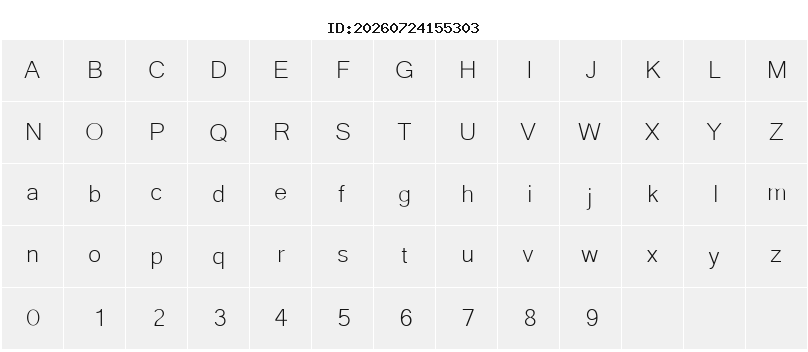
Microsoft Yi Baiti Preview
• Font Name: Microsoft Yi Baiti
• Font ID: Microsoft Yi Baiti
• Full Font Name: Microsoft Yi Baiti
• Version: Version 5.00
• PostScript Name: Microsoft-Yi-Baiti
• Character Count: 1535
• Designer: Beijing Founder Electronic CO. LTD.
• Manufacturer: Microsoft Corporation
About Microsoft Yi Baiti.ttf
Microsoft Yi Baiti.ttf is a modern, elegant sans-serif font designed for ultimate readability and visual harmony. Perfect for branding, headlines, web design, and print materials.